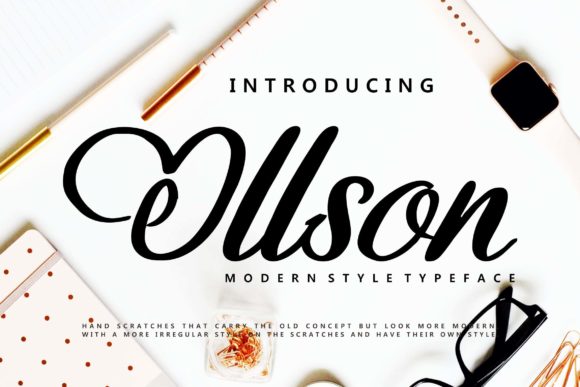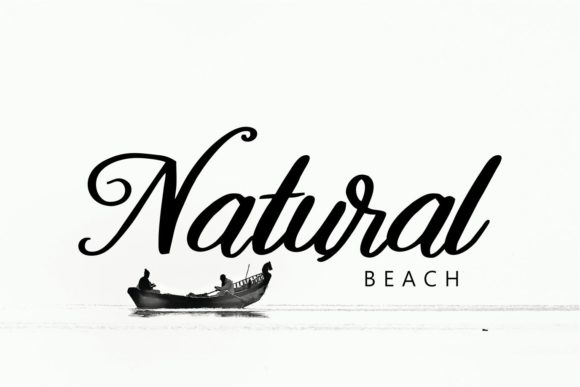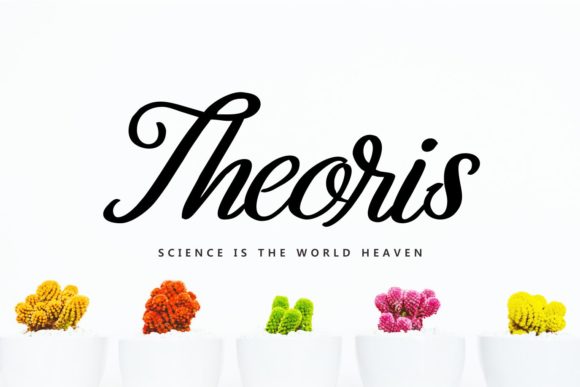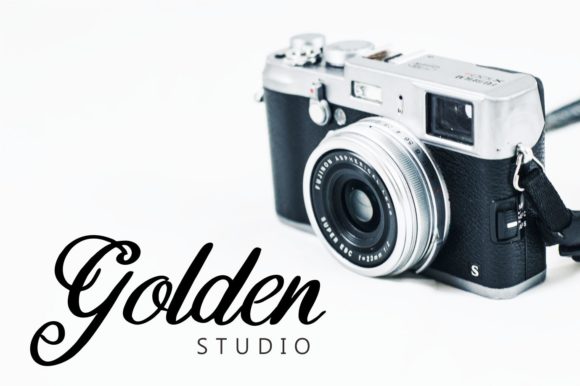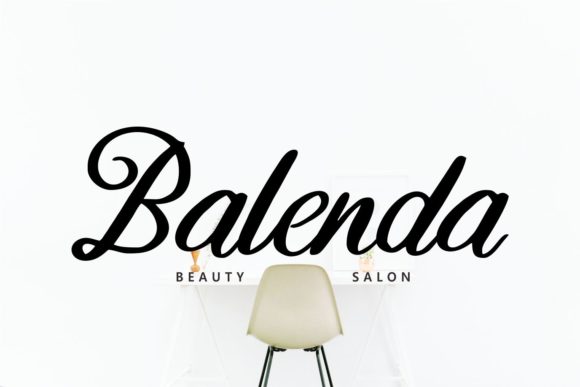
HomeScript FontsOllson Font Script Fonts Ollson Font FacebookXPinterestWhatsApp Ollson Font Poster 2 Ollson Font Poster 3 Ollson Font Poster 4 Ollson Font Poster 5 About Ollson Font Ollson is a modern handwritten font with a bold touch. Get inspired by its natural charm. DOWNLOAD NOW People also explored Weather Symbols Font Joggin Font Magnolia Font Sunglassess Monogram Font Absolute Monogram Font Haystay Melody Font Fishing Journey Font Novyana Font ZP Marimba Font 412 0 TagsOllson Font Previous articleAndara FontNext articleAnsbach Font LEAVE A REPLY Cancel reply Comment: Please enter your comment! Name:* Please enter your name here Email:* You have entered an incorrect email address! Please enter your email address here Website: Save my name, email, and website in this browser for the next time I comment. Personal Use Free Goodline Font Personal Use Free Read more about this font Bulky Personal Use Free Read more about this font Good Mood Personal Use Free Read more about this font Aliqa Personal Use Free Read more about this font BLOG Free Fonts Risk: Why Free Fonts Can Be Dangerous for Designers Free Fonts Risk: Why Free Fonts Can Be Dangerous for Designers Using free fonts is a common practice in web and graphic design. However, the... Top 10 Handwritten Fonts That Elevate Your Designs Exploring Font Trends Where to Buy American Fonts Online in 2024